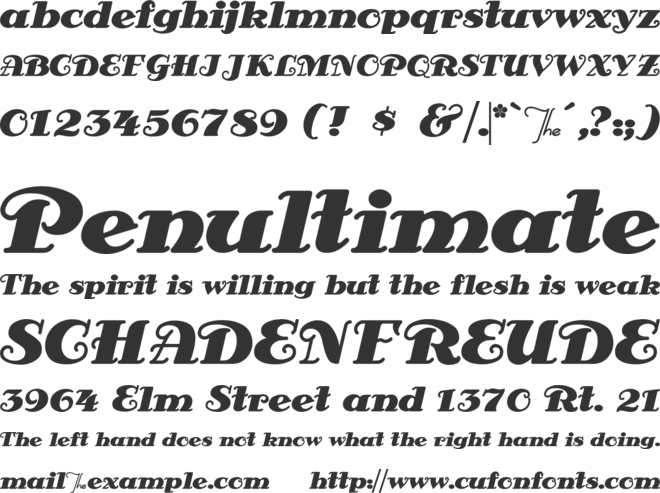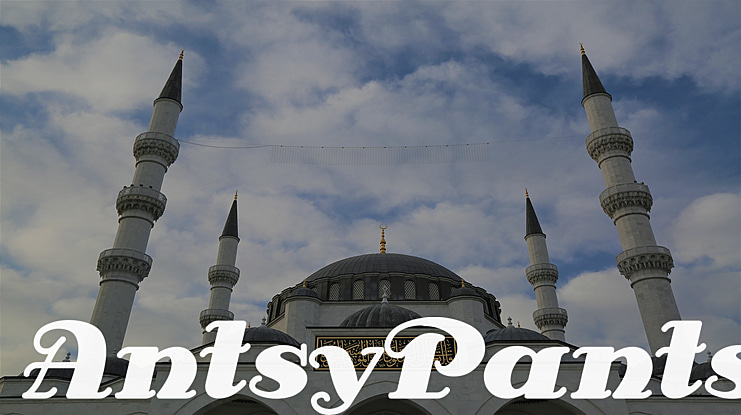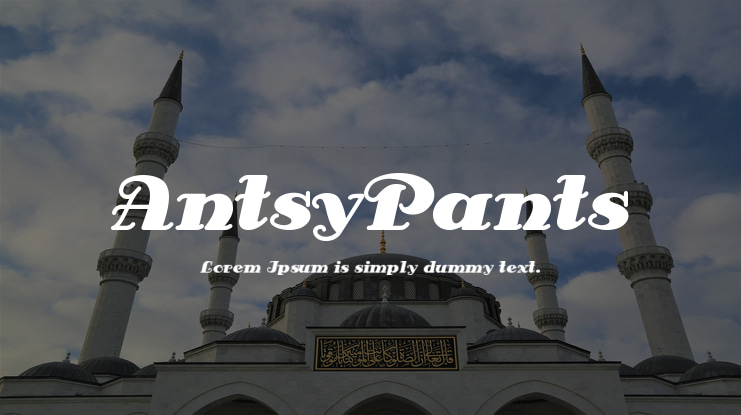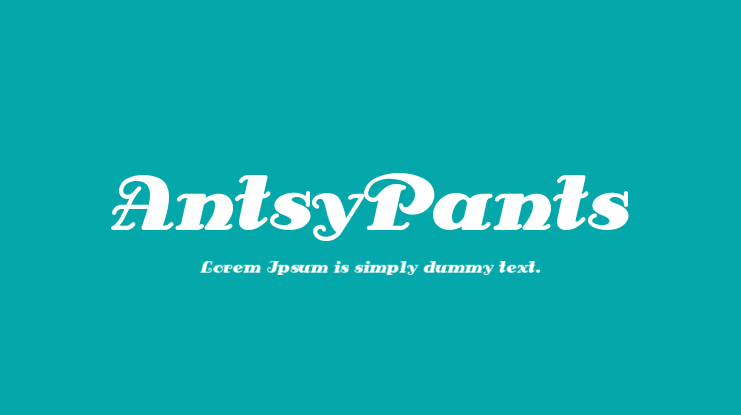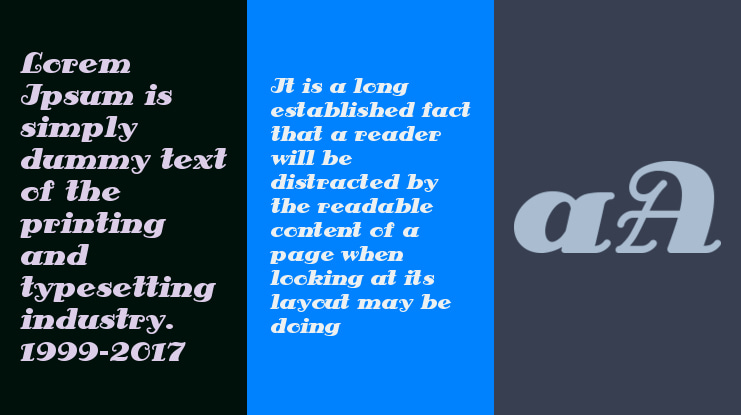
AntsyPants Font
When phellow phont phreak Phil (who actually turned out to be Diana, but that’s another story) turned me on to this font, she said “I can’t believe it’s not in your collection!” Well, now it is: based on CG Siena—a little less fussy but no less fun—this typeface moves, grooves and behooves any occasion for which it is used.